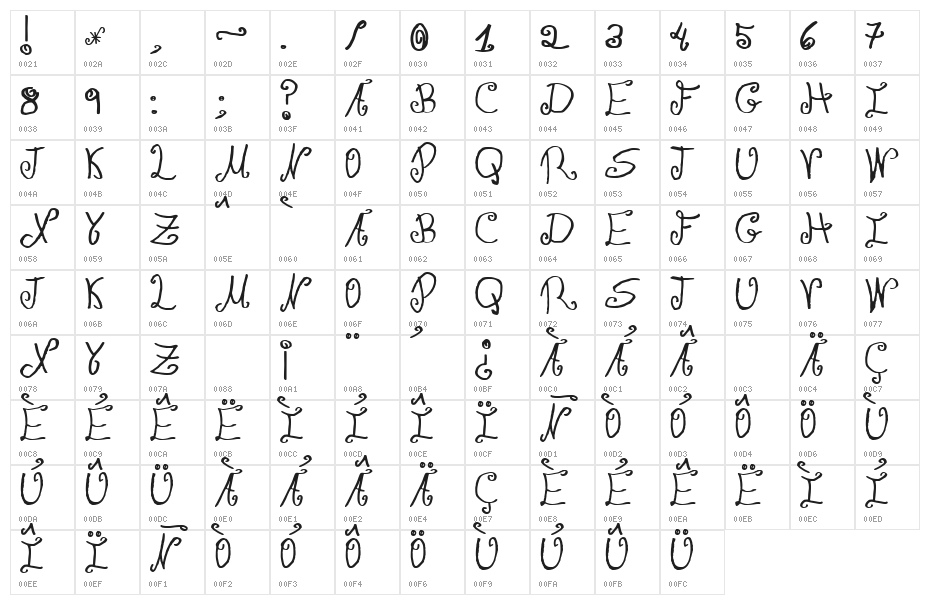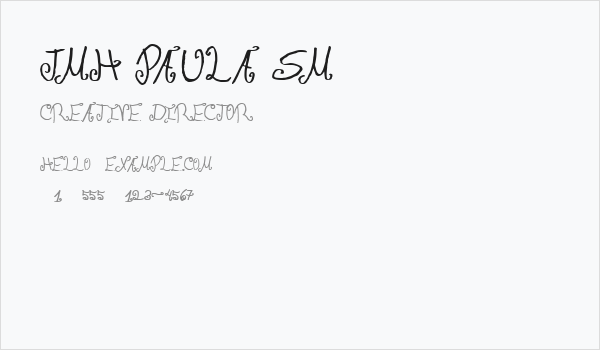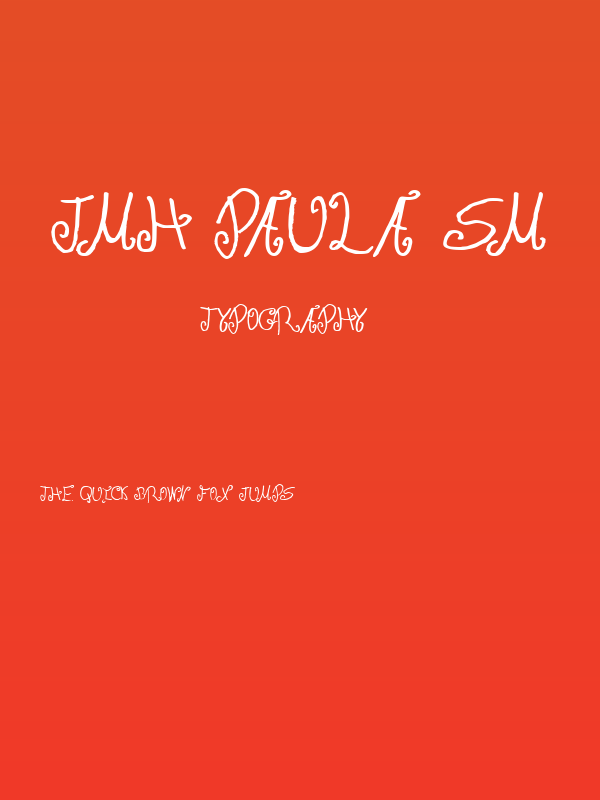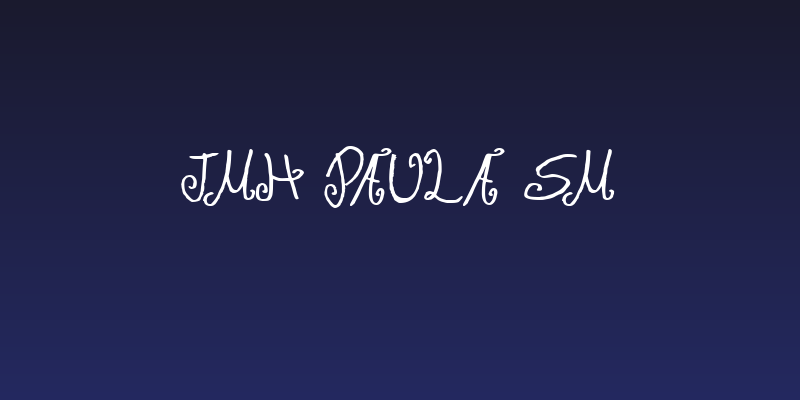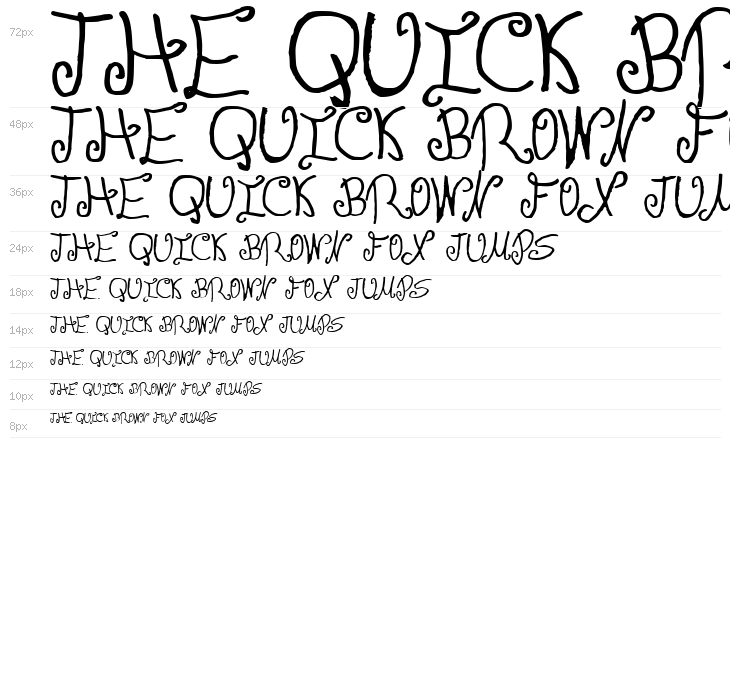
JMH Paula SM Font
JMH Paula SM Description
This font features a whimsical and decorative style with a playful, curly design. Each character is adorned with unique swirls and loops, giving it a lively and artistic appearance. The uppercase letters are particularly ornate, with exaggerated curves and flourishes that make them stand out. The lowercase letters maintain a consistent style, complementing the uppercase with their own intricate details. Numbers and special characters follow the same decorative theme, ensuring a cohesive look across all glyphs. This font is ideal for projects that require a touch of creativity and flair.
| Proposed Projects | Ideal for greeting cards, invitations, playful branding, and artistic posters. |